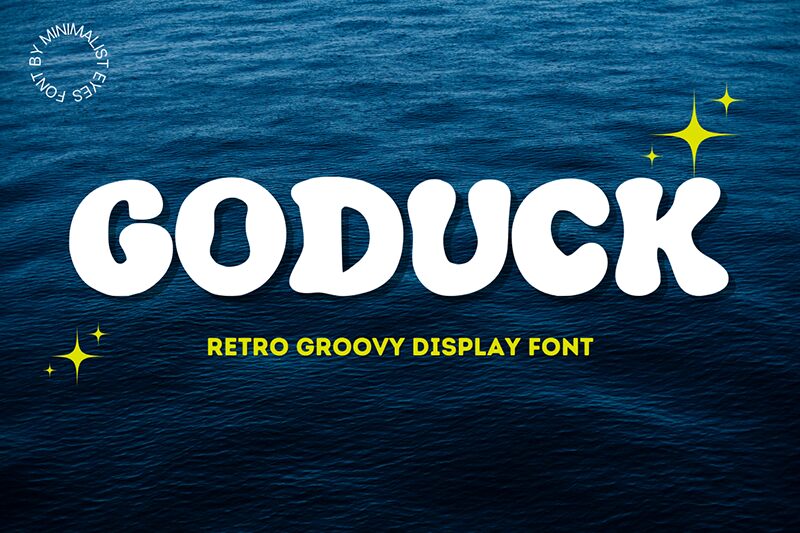
GODUCK
Goduck font by Muhammad Afif of Minimalist Eyes is a free bold display font with a groovy style typical for the 60s and 70s era. The characters have a vintage appearance that will help take your design back in time with every word typed using this typeface. The friendly and approachable design can be used to craft well-balanced project layouts which go hand-in-hand with personalized user interfaces.
Banner ads, billboards, invitations to events, logos, product packaging labels, social media headers, printed merchandise designs like t-shirts and mugs are all primary use cases for this stylish font by Minimalist Eyes.